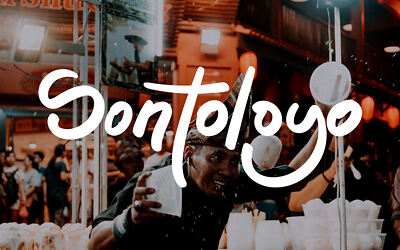
Bolderslant is just handwritten font with thick line and slant style.
When making this font I started by writing a few words using a digital drawing application, then I continued to complete all the letters, numbers and punctuation marks until I was done. Then I compiled it in a vector application before I finally put it in a font maker application.